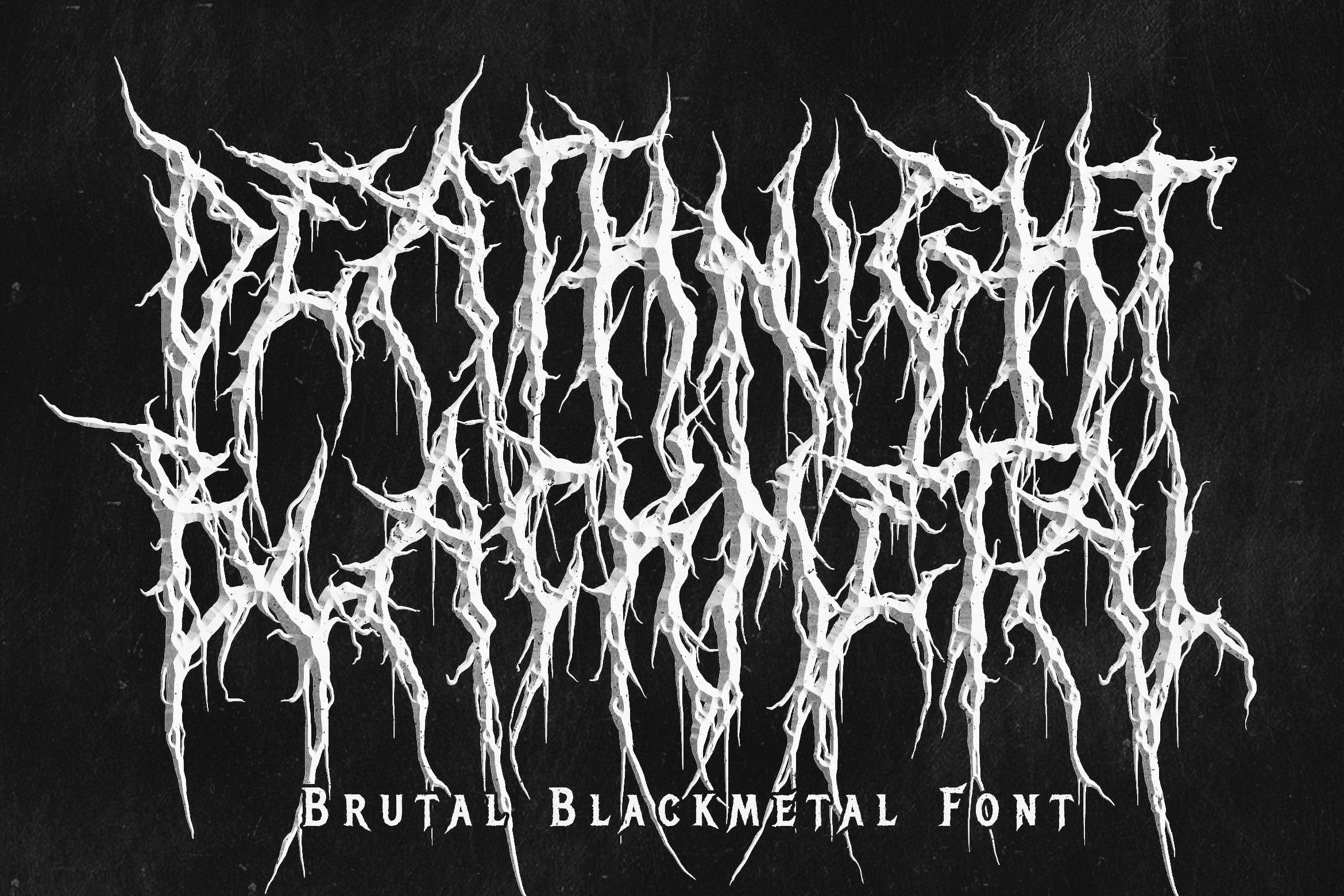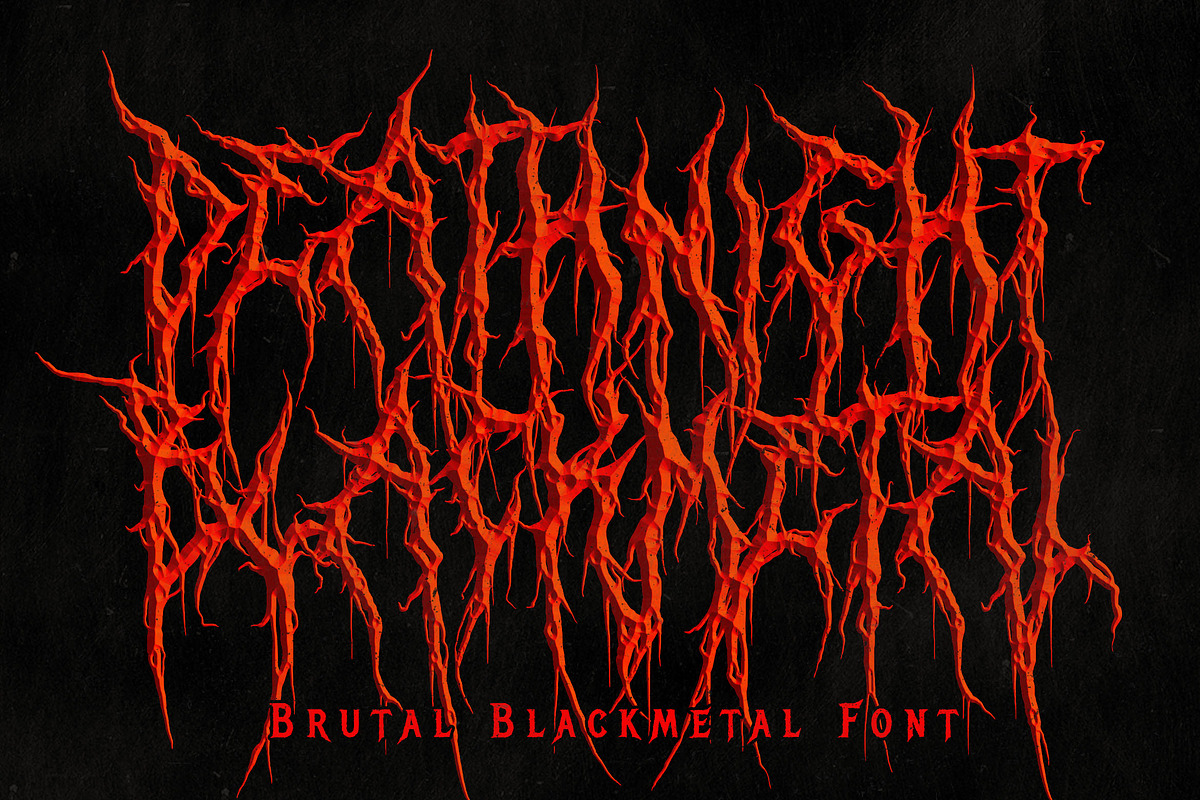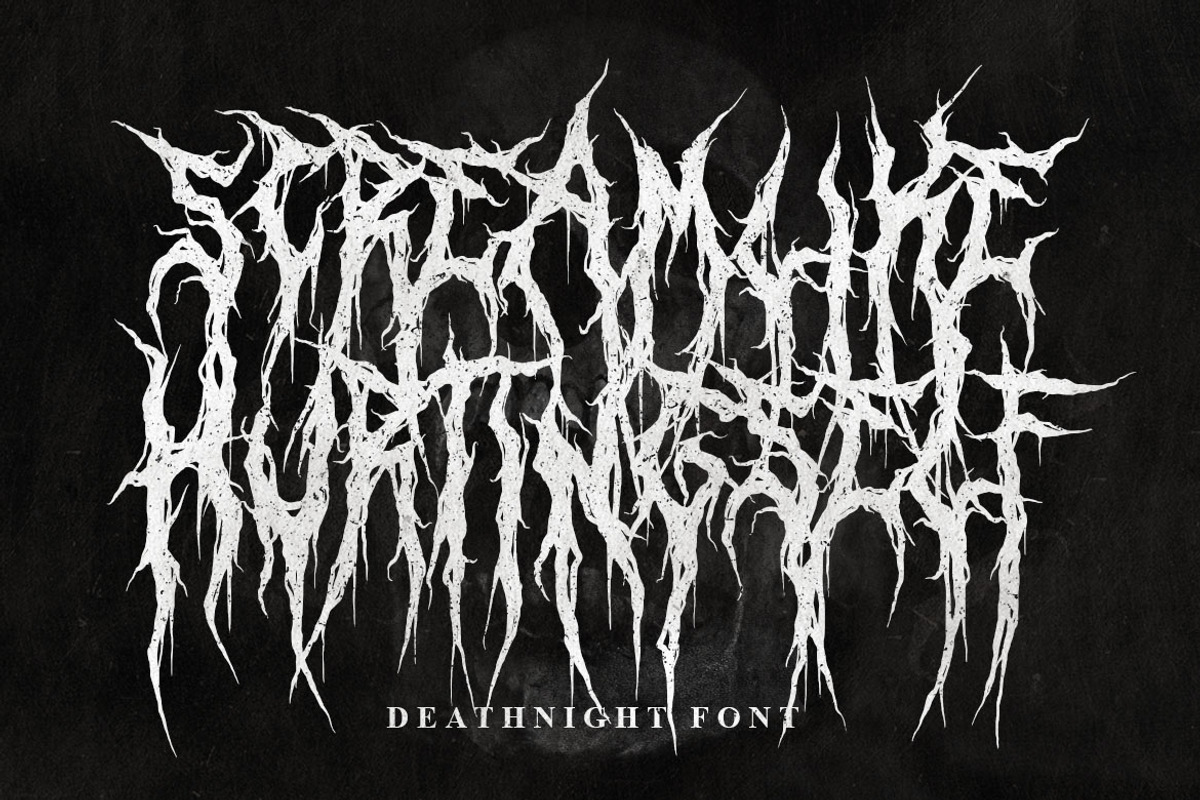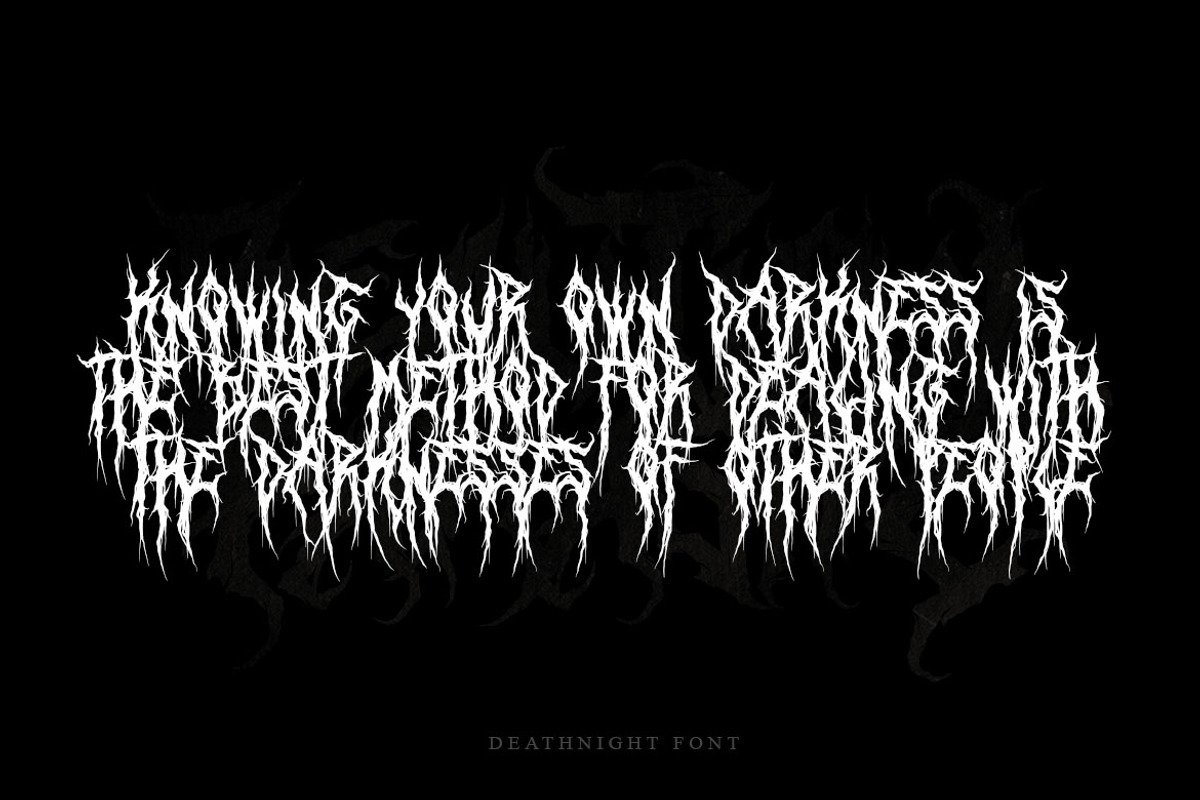
Death Night Black Metal Font
Deathnight is awesome death metal font. Comes with Uppercase and lowercase characters. This font is great for any gore/metal/brutal design purposes. Deathnight is awesome for your logo, your band, for merchandise, for clothing, and movie title/poster